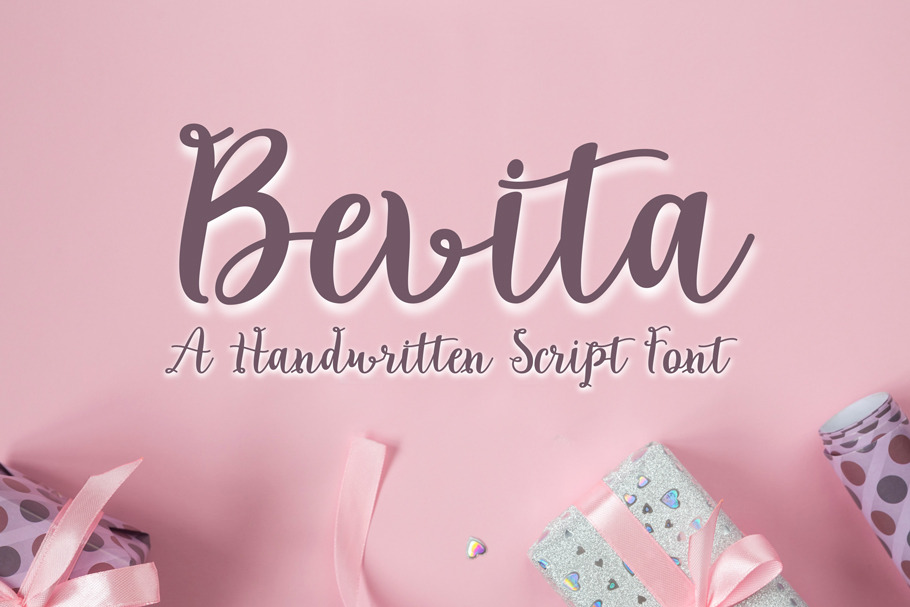
Bevita is a stylish and delicate script font. It has a clean, thin and smooth vibe and it will be a hit for any design that you want to add it to. This font is PUA encoded which means you can access all of the glyphs and swashes with ease! This gorgeous font includes all lowercase and uppercase characters, numbers, punctuation, alternate ,an array of standard ligatures and a selection of international characters as well (please type in the preview below to see if I have what you need!)